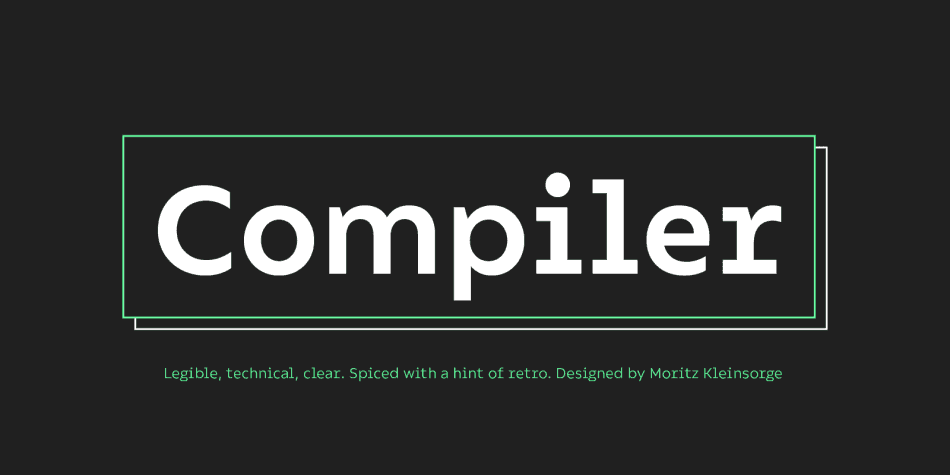
Compiler is a minimalist font family from microprocessors’ core, inspired by console typefaces. Humanist is a sans-serif font featuring wide x-height and distinctive serifs on certain letters like I and L; these serifs recall monospace typefaces used for programming. Even though Compiler can be considered proportional font, its proportional features enhance recognition of letters.